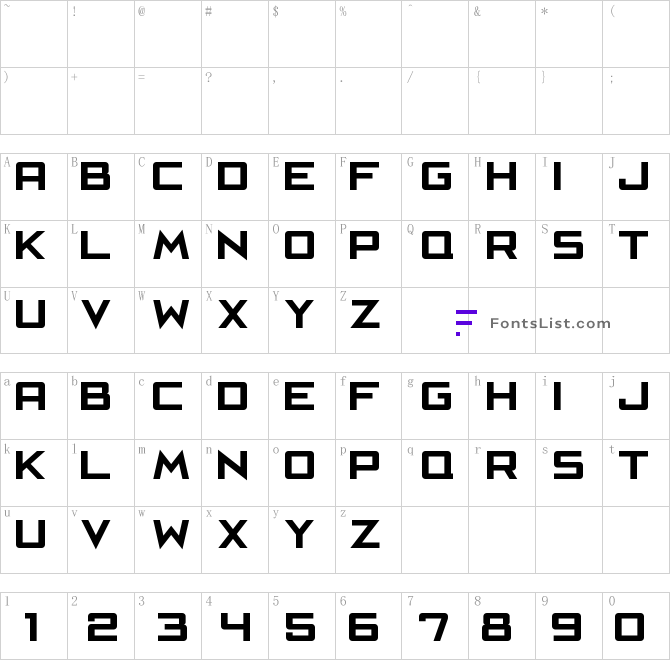
- Font Name:Cafe Nero M54
Cafe-Nero-M54.ttf is a very beautiful artistic font, Cafe-Nero-M54.ttf is widely used in the design and printing of various books and pictures,Cafe-Nero-M54.ttf has a strong visual impact,Cafe-Nero-M54.ttf is a commonly used font in newspapers, magazines and books, and is used in posters, e-commerce Poster design, store design, logo design, font design and other fields.Cafe-Nero-M54.